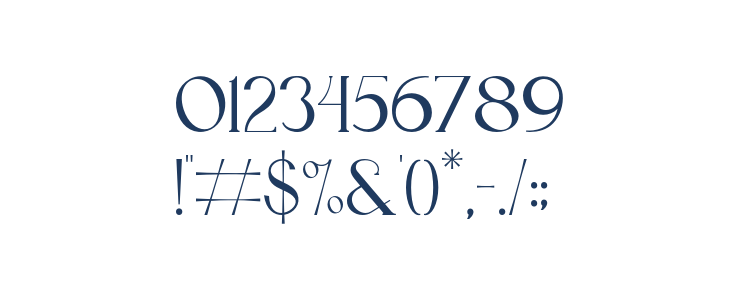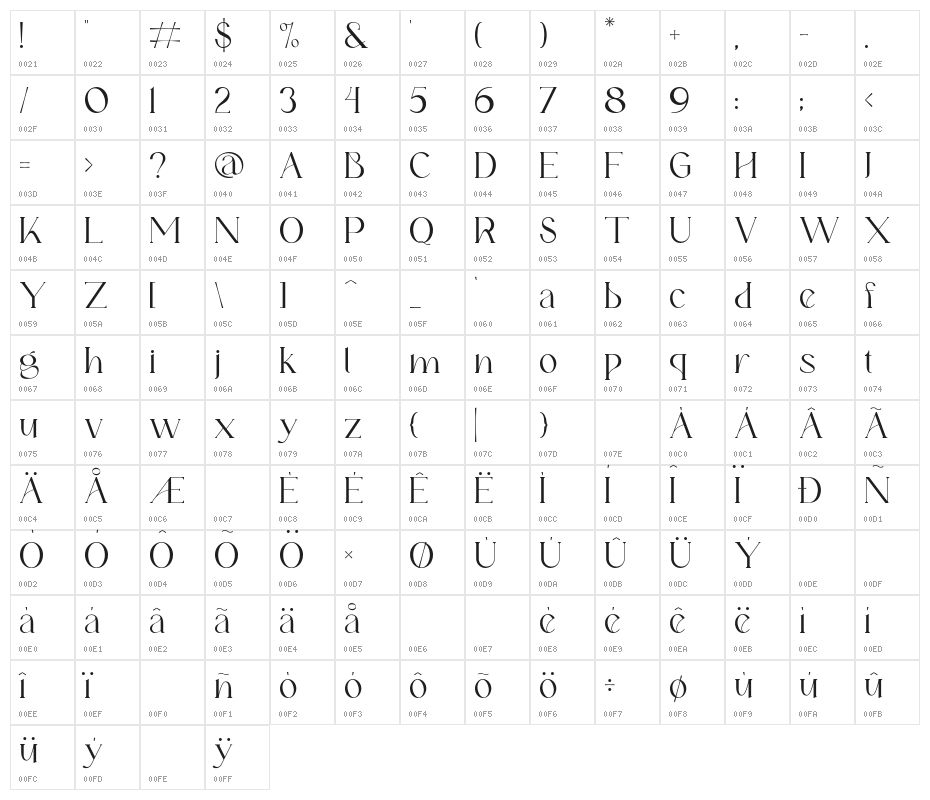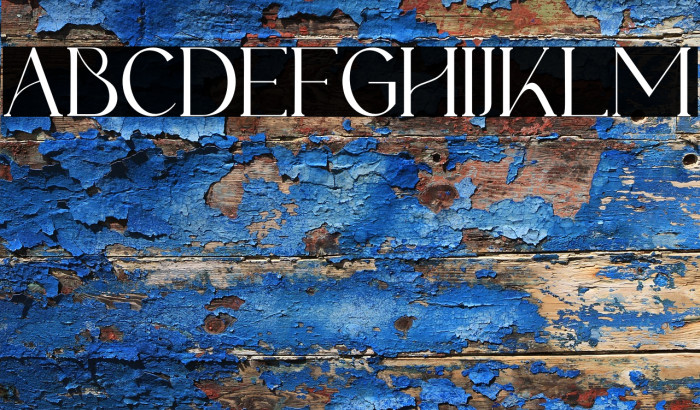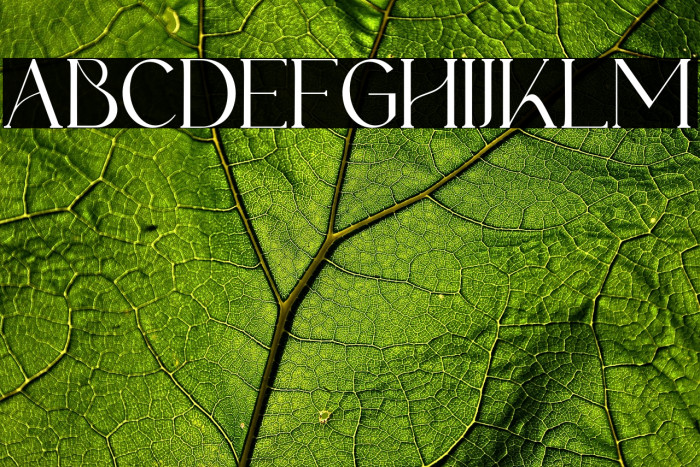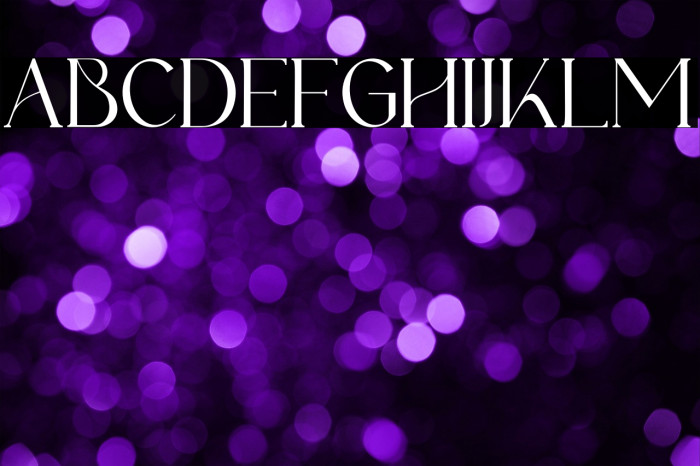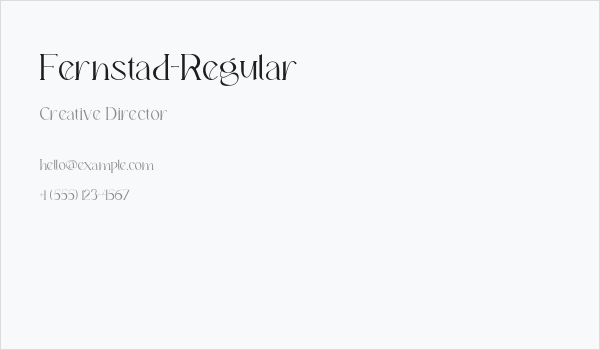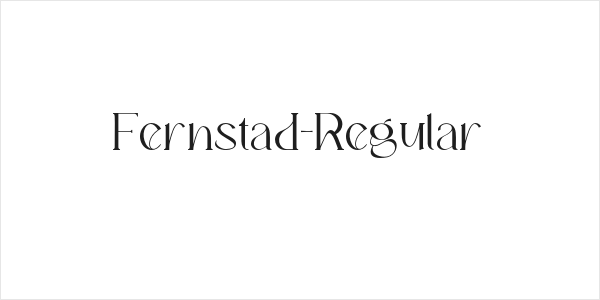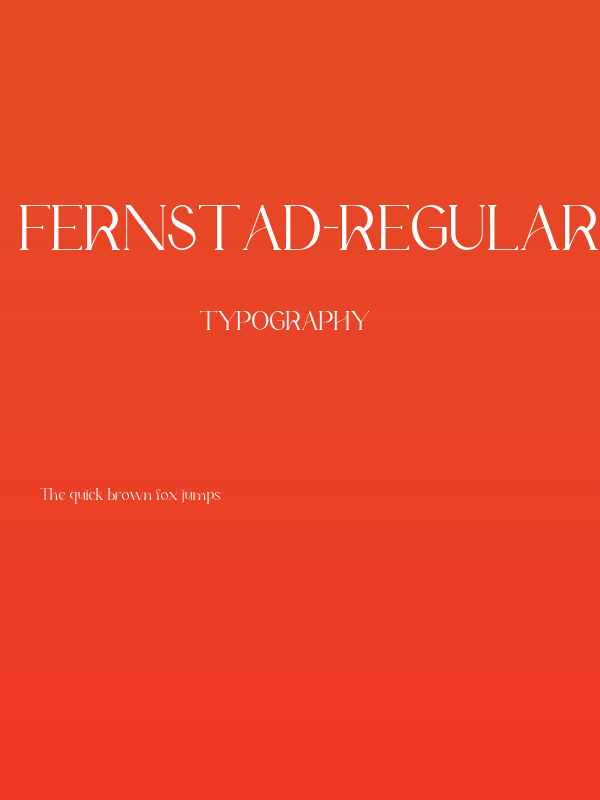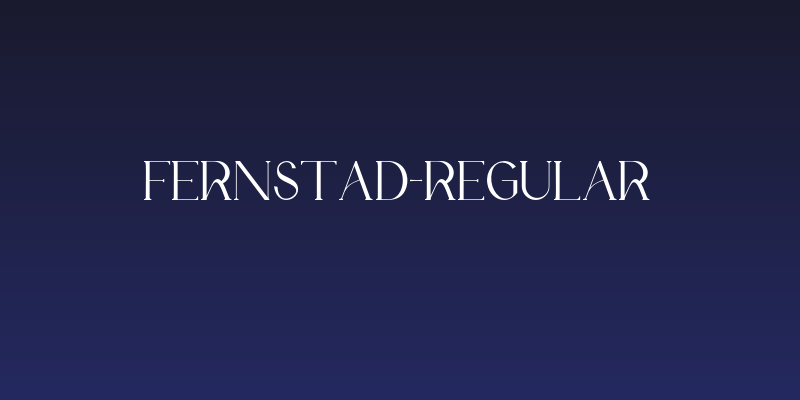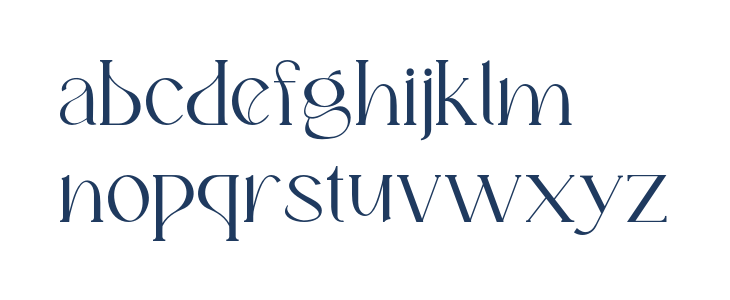
Fernstad-Regular Font
Fernstad-Regular Description
This font features a unique blend of modern and classic elements, characterized by its elegant and elongated letterforms. The uppercase letters exhibit a sophisticated flair with subtle curves and sharp angles, while the lowercase letters maintain a consistent flow with a touch of whimsy. The numerals are distinct and easy to read, complementing the overall aesthetic. Special characters are thoughtfully designed, adding to the font's versatility. The contrast in stroke thickness is medium, providing a balanced appearance that is both stylish and readable.